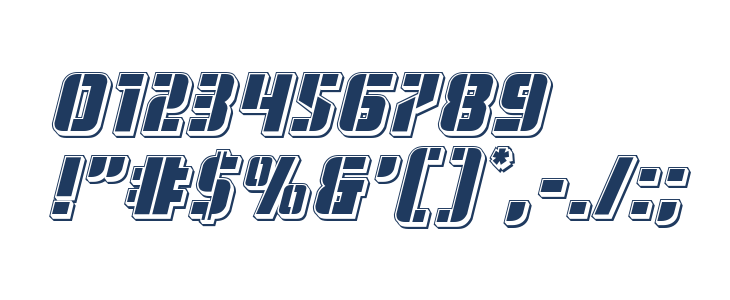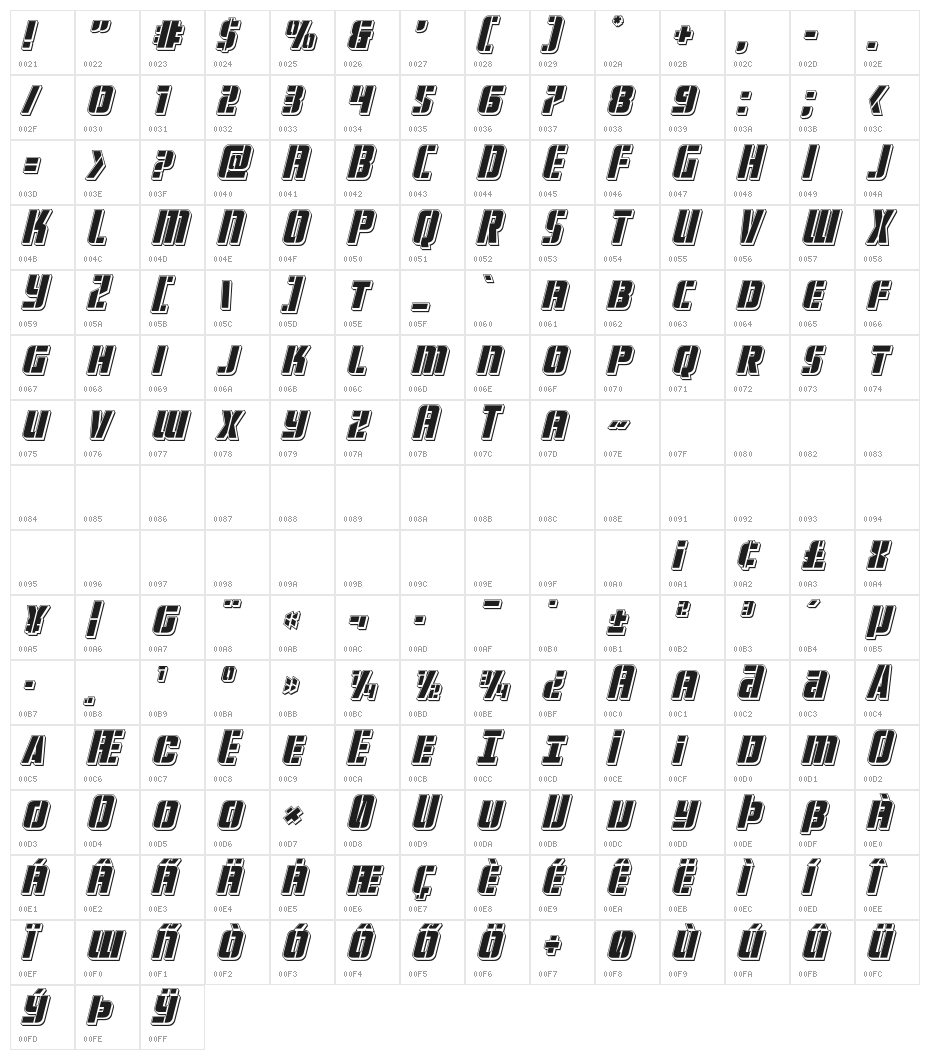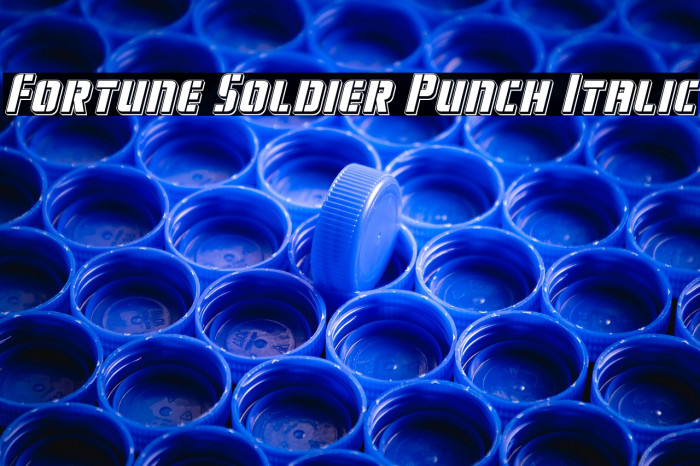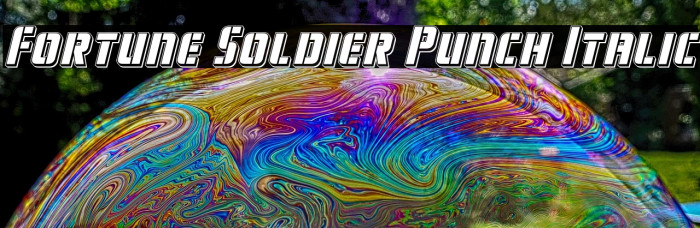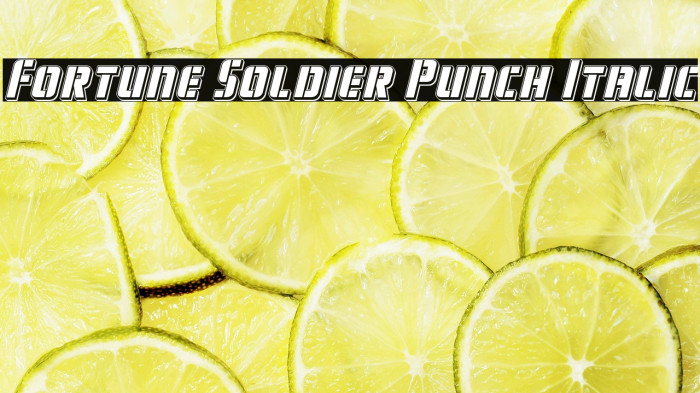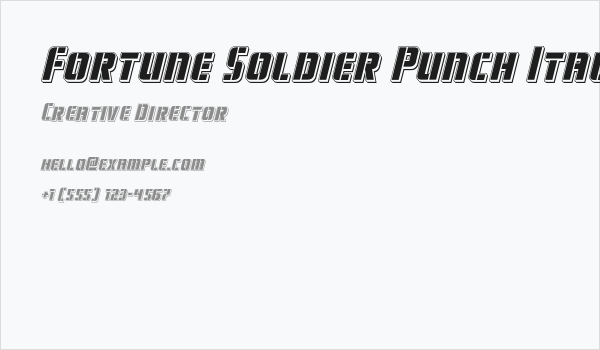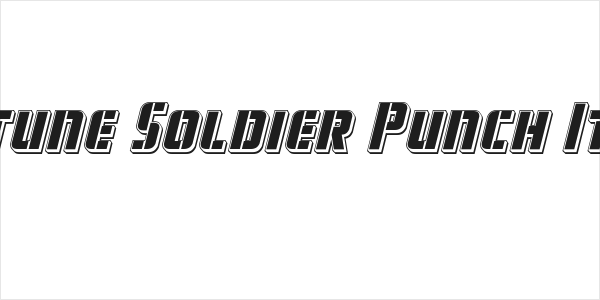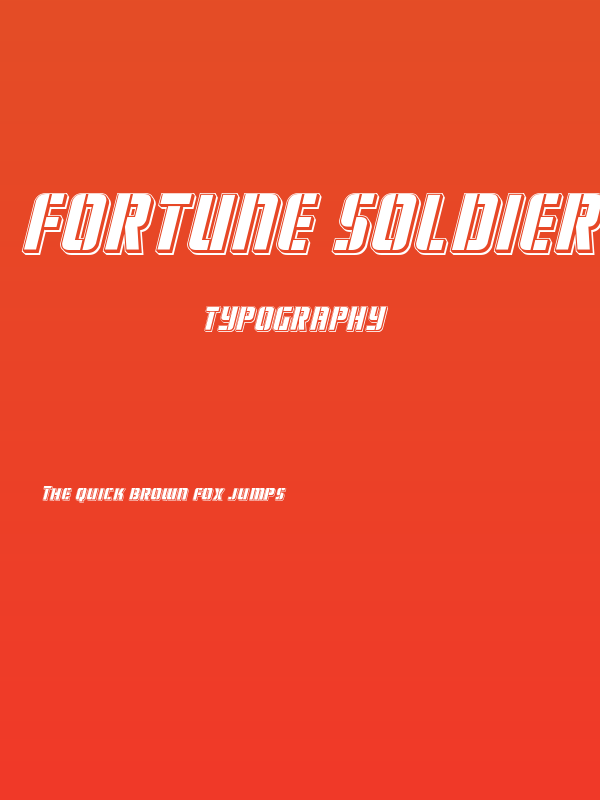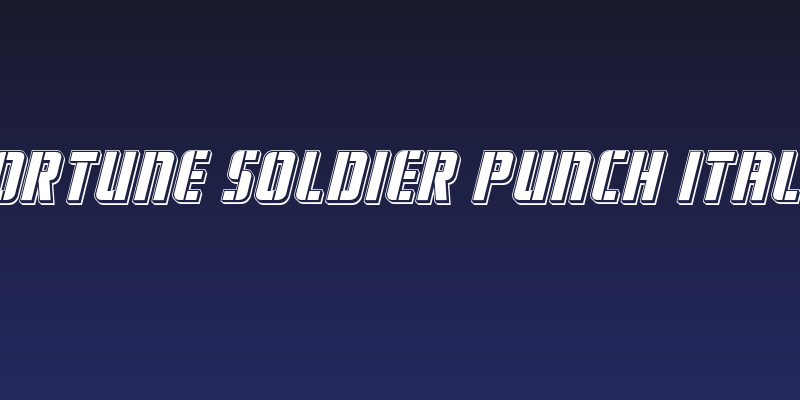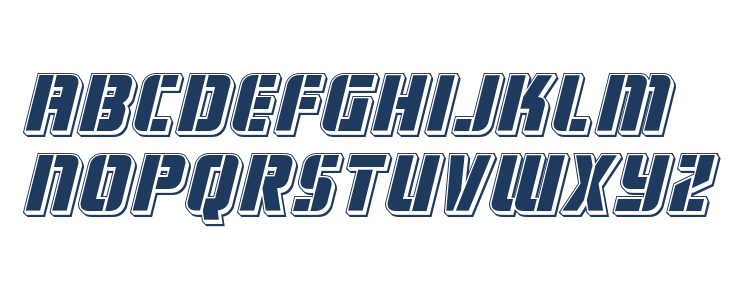
Fortune Soldier Punch Italic Font
Fortune Soldier Punch Italic Description
This font features a bold, dynamic style with a strong presence, characterized by its italicized, block-like letterforms. The design incorporates a three-dimensional effect with a shadowed outline, giving it a punchy and impactful appearance. The uppercase and lowercase letters maintain a consistent style, with sharp angles and a slightly condensed form. The numerals and special characters follow the same bold and italicized theme, ensuring uniformity across all glyphs. This font's unique style makes it stand out, perfect for projects that require a strong visual impact.
| Proposed Projects | Ideal for sports branding, action-themed posters, video game titles, and dynamic logo designs. |